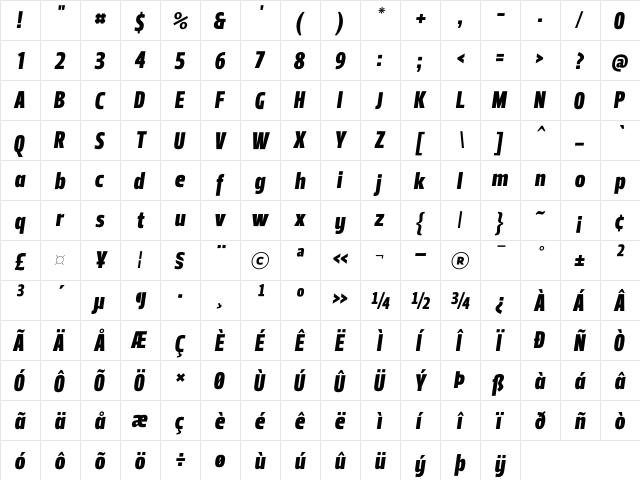
Leitura Headline Italic
Design Context for Leitura Headline Typeface
Leitura Headline offers clean, dependable letterforms without strong stylistic allegiance, making it a practical choice for designers who need flexibility. The slanted form adds forward momentum and visual energy.
Pro Tip: Use Leitura Headline for emphasis, pull quotes, and subheadings where its slanted energy can add rhythm to the layout.